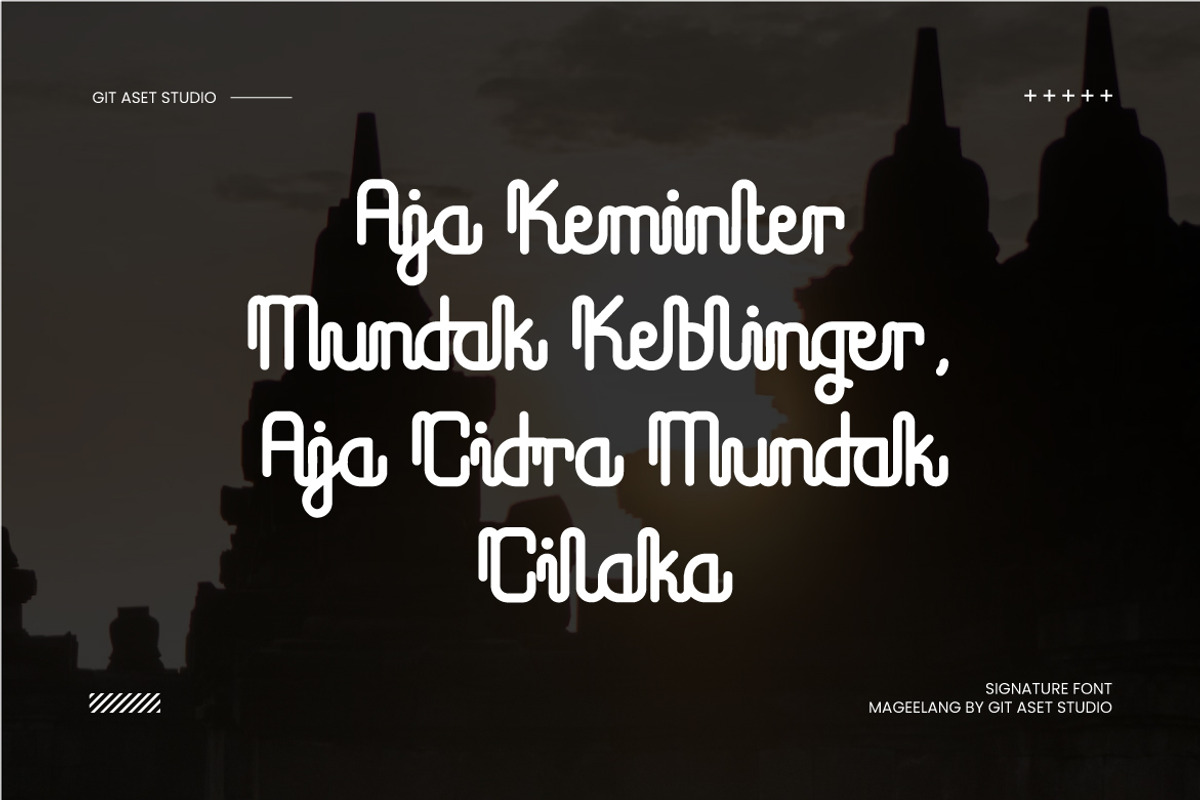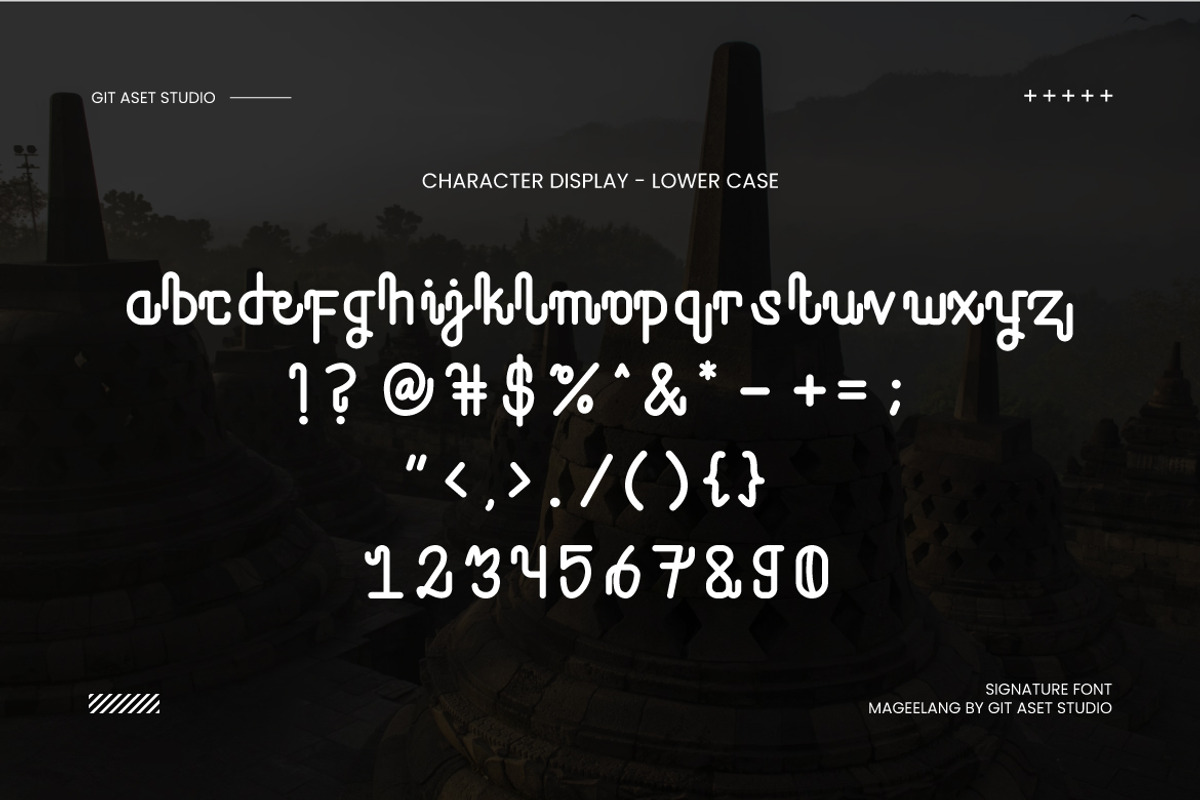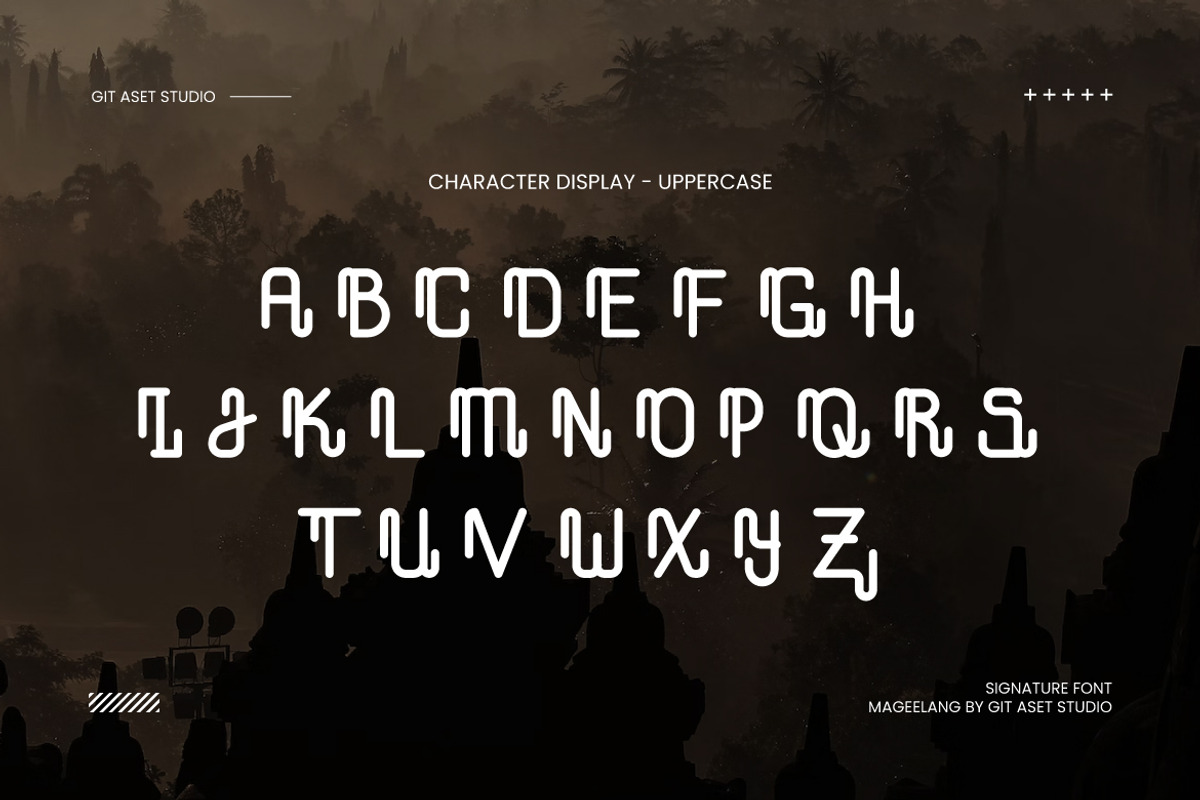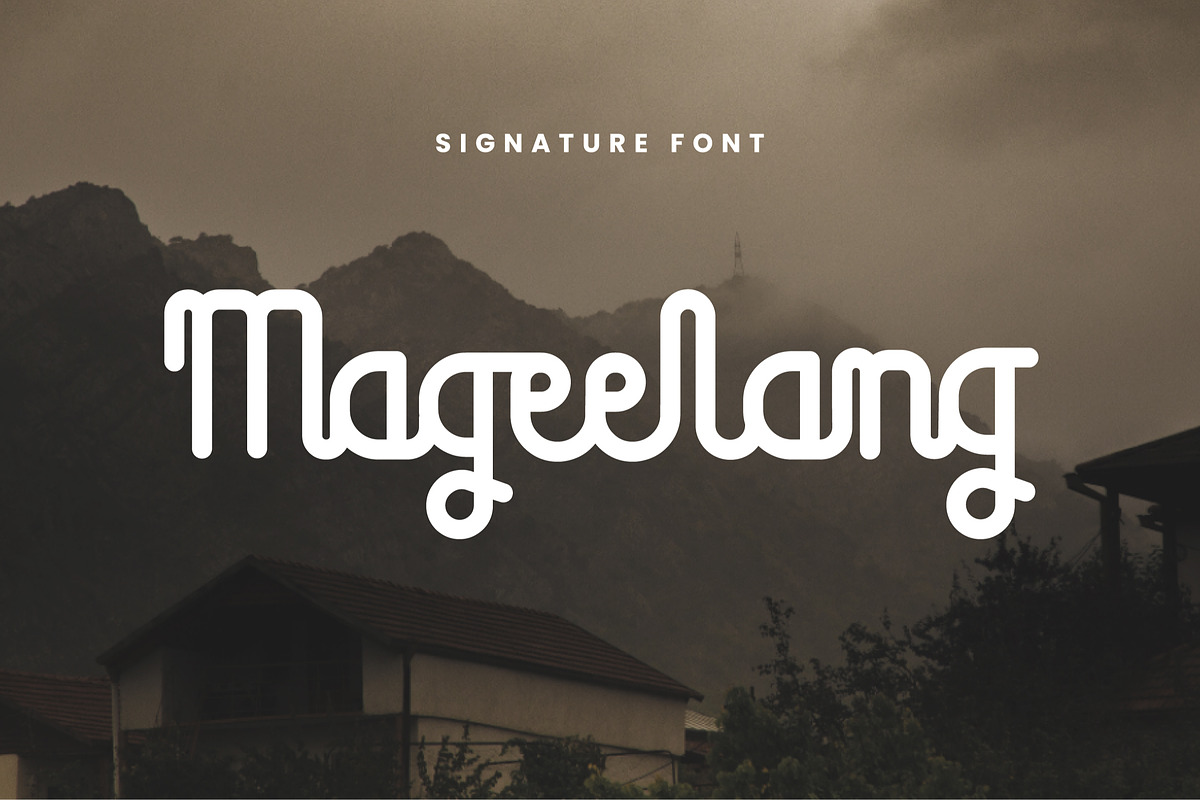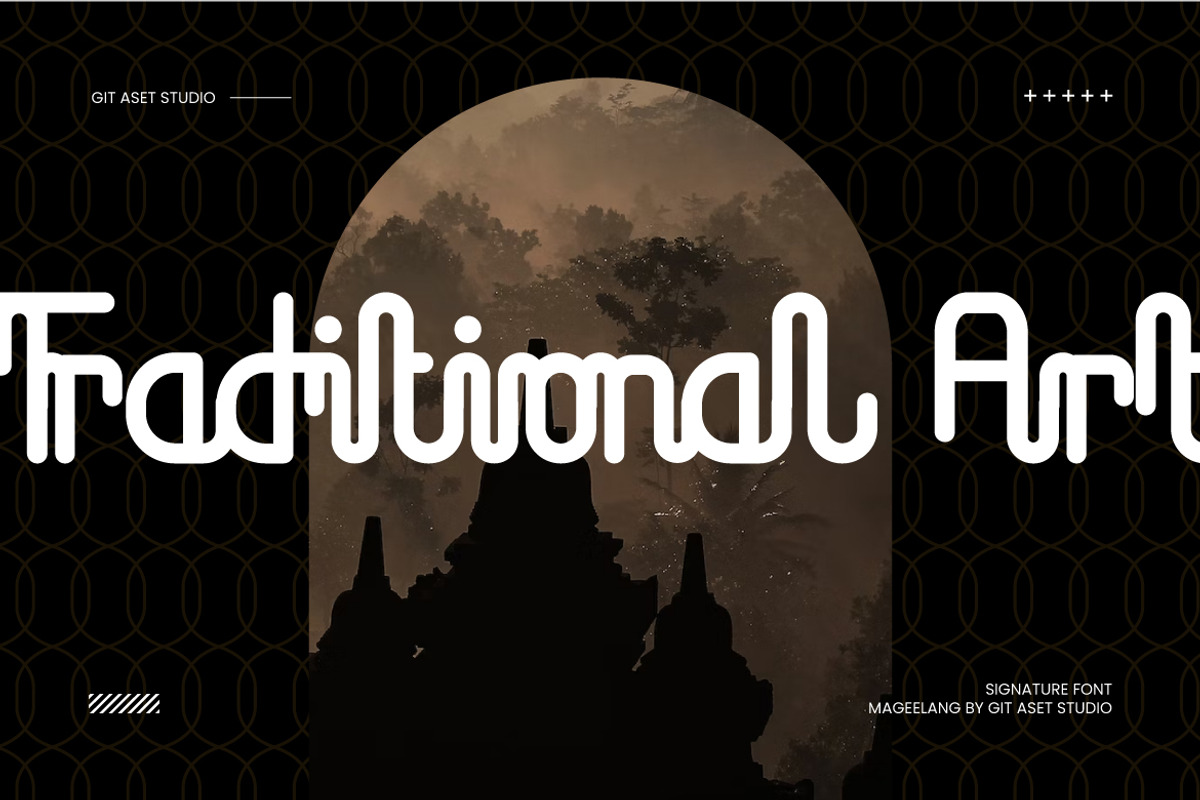
Mageelang - Traditional Handdrawn
Introducing a mesmerizing traditional handdrawn font that is sure to captivate your audience. With its unique charm and elegant craftsmanship, this font embodies the essence of timeless artistry. Incorporating this font into your projects will add a touch of authenticity and nostalgia, instantly transporting viewers to a bygone era.
While this font does not offer ligatures and alternate characters, its beauty lies in its simplicity. Each letter is meticulously handdrawn, showcasing the artist's dedication to preserving traditional craftsmanship. This font is perfect for those who appreciate the charm of unadorned, classic letterforms.
With this font asset, the possibilities are endless. Its timeless appeal makes it an ideal choice for creating elegant wedding invitations, vintage posters, nostalgic branding elements, and much more. Let your imagination run wild as you utilize this font to conjure up designs that evoke a sense of refined elegance and old-world charm.